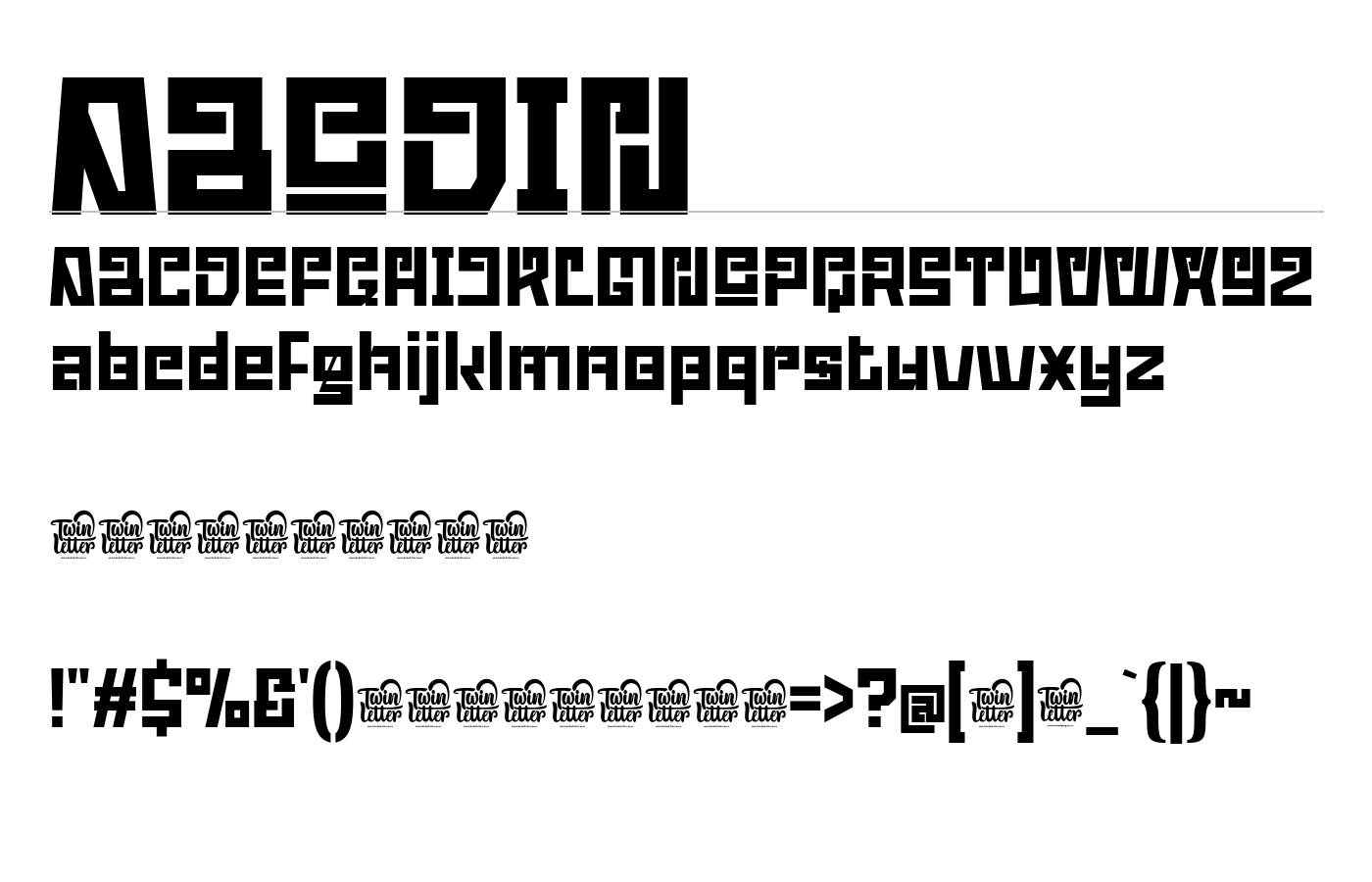
ABODIN is a bold, condensed sans serif font with a striking geometric and blocky design that creates a modern, edgy feel. Its high contrast between thick and thin strokes coupled with sharp angles and unique squared shapes make it perfect for eye-catching headlines, logos, and poster designs seeking a strong, urban, or futuristic vibe. This font stands out best in display settings where its distinctive style can shine without sacrificing legibility.
ABODIN Font
About ABODIN Font